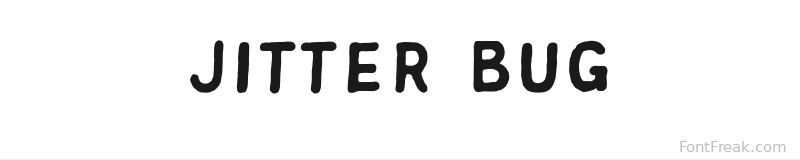
Jitter Bug
About Jitter Bug
Jitter Bug by BLKBK Fonts is a captivating display font that perfectly embodies a playful and whimsical aesthetic. This unique typeface features irregular, hand-drawn letterforms that give it a lively and spontaneous feel, making it an excellent choice for projects that require a touch of personality. The font is designed with a medium stroke weight and minimal contrast, ensuring legibility while still allowing for an engaging visual experience. Its slightly uneven spacing adds to the charm, creating a dynamic flow that draws the viewer's eye.
Given its distinctive style, Jitter Bug is ideal for a variety of creative applications. It shines in settings such as children’s book covers, where its playful nature can capture the imagination of young readers. Additionally, this font works wonderfully for event flyers and posters, particularly for events that embrace a fun or quirky theme. Restaurant menus can also benefit from Jitter Bug, providing a lighthearted touch that complements casual dining atmospheres. Furthermore, it is suitable for social media graphics, helping content creators stand out in a crowded digital landscape.
The target audience for Jitter Bug includes graphic designers looking for unique typefaces to enhance their projects, small business owners who want to infuse personality into their branding, and content creators seeking to engage their audience with eye-catching visuals.
What sets the Jitter Bug font apart is its ability to convey a sense of joy and excitement, making it memorable and effective for capturing attention. Whether you’re designing for print or digital media, the Jitter Bug font free download opens up a world of creative possibilities, inviting users to explore and express their ideas in a fun and engaging manner.